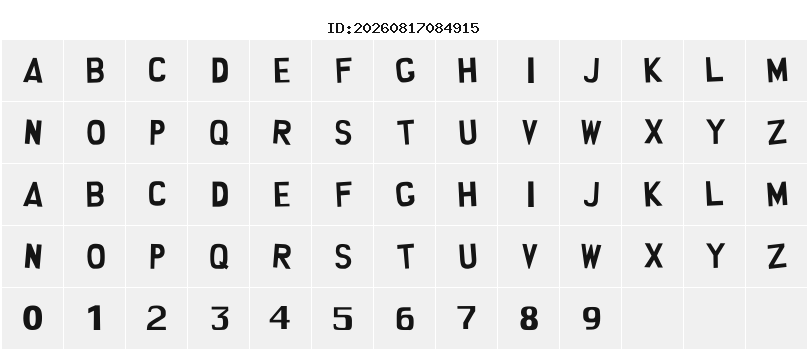
• Font Name: South Park
• Full Font Name: South Park :)Smilie version
About South Park.ttf
South Park.ttf is a modern, elegant sans-serif font designed for ultimate readability and visual harmony. Perfect for branding, headlines, web design, and print materials.